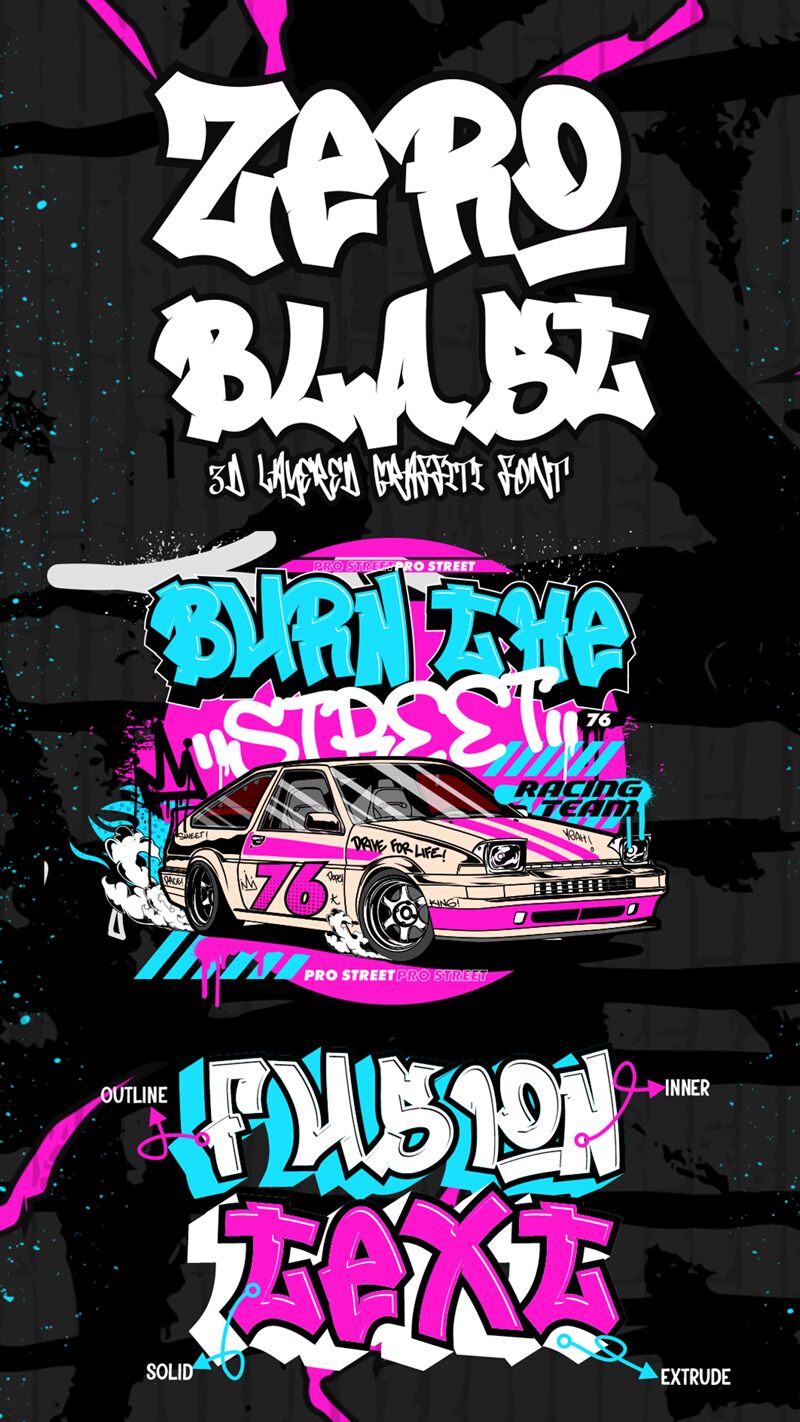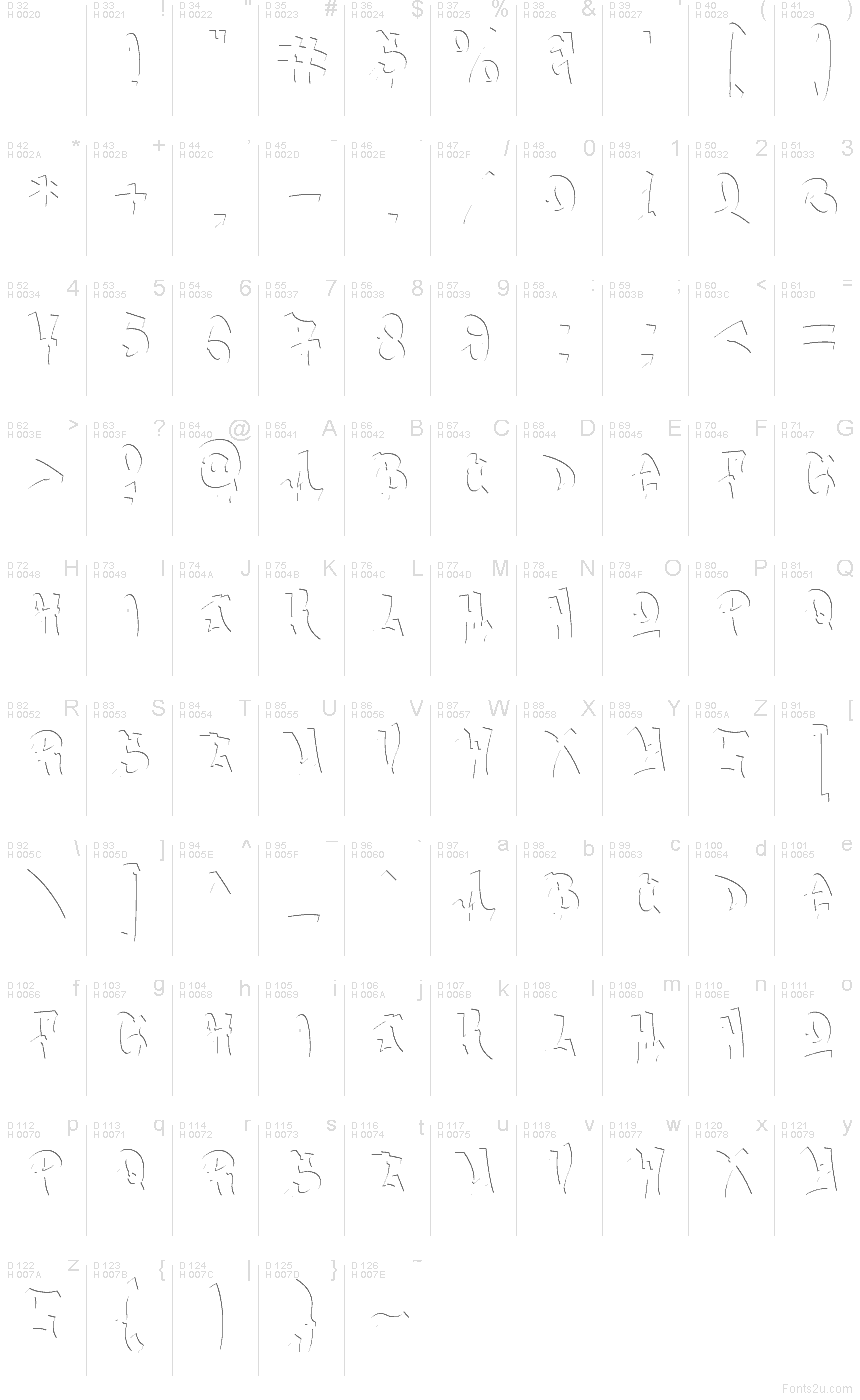
Zero Blast Inner font by Muhammad Panji Ramdhani of Sipanji x Figuree is a free graffiti font, and its hook is that hollow, inner-cut construction—like marker outlines left to breathe. The strokes feel wiry and kinetic, with bouncy spacing that keeps the wordshape loud even without heavy fills. It has that quick tag energy, but stays readable thanks to consistent rhythm and open counters.
Using Zero Blast Inner, you’ll get punch on streetwear graphics, skate posters, music flyers, YouTube thumbnails, sticker packs, game splash screens, and edgy brand marks. This free font shines when you scale it up and give it room; let the outlines do the talking. Pair it with a plain condensed sans for captions so the graffiti typeface stays the headline.